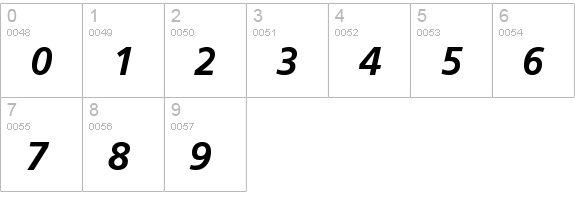
SALFrutiger-BoldItal Font Details
SALFrutiger-BoldItal font is a bold and italicized typeface that exudes elegance and sophistication. Its strong and slanted letterforms make a powerful statement, giving any design project a touch of modernity and flair. This font is the perfect choice for designers looking to make a lasting impression with their typography. Whether you are creating eye-catching headlines, stylish logos, or captivating advertising materials, SALFrutiger-BoldItal will surely elevate your designs to new heights. One of the best features of SALFrutiger-BoldItal font is that it is available for free! Yes, you read that right. This incredible font can be freely downloaded at FontsMarket.com, giving you the opportunity to enhance your designs without breaking the bank. With its seamless legibility and versatility, SALFrutiger-BoldItal font can be used in a wide range of projects. From print materials like brochures, magazines, and posters to digital creations such as websites, social media graphics, and mobile applications, this font will make your content stand out from the crowd. So why wait? Download SALFrutiger-BoldItal font today from FontsMarket.com and unleash your creativity. Whether you're a professional designer or simply someone who appreciates beautiful typography, this font is a must-have in your collection. Don't miss out on the opportunity to elevate your designs with this stunning and freely accessible font. Get ready to make a bold statement and captivate your audience with SALFrutiger-BoldItal!